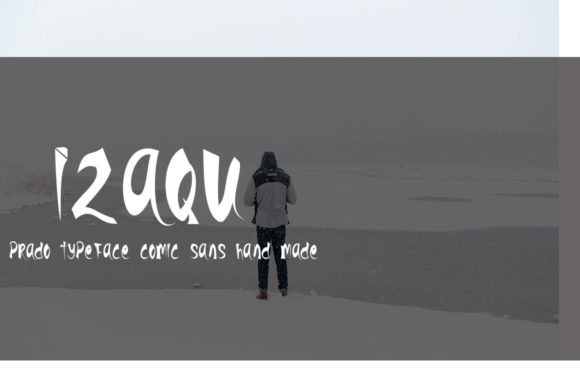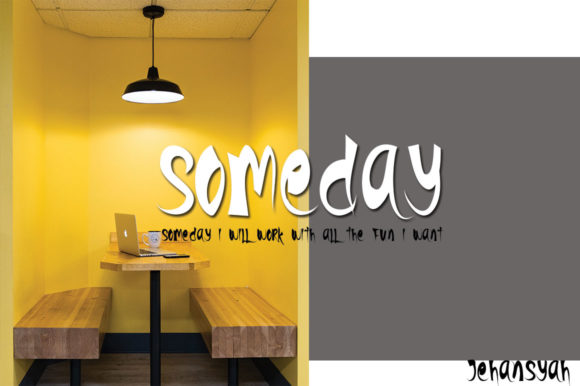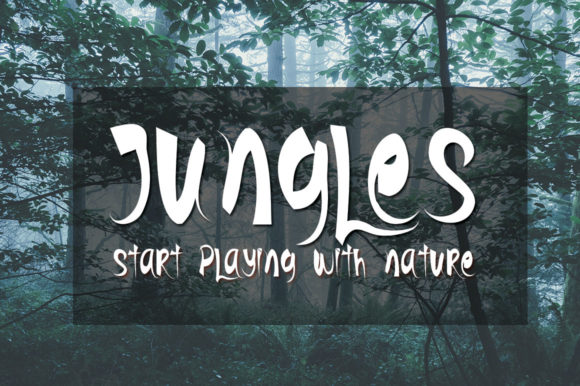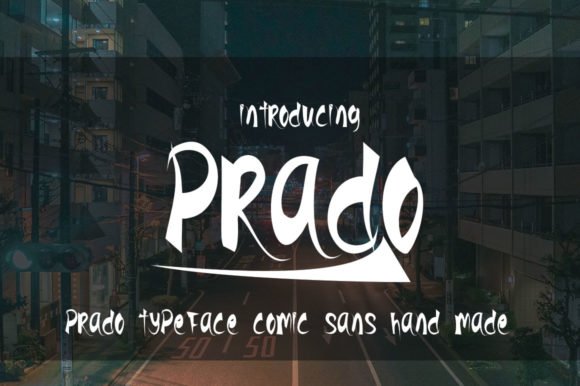
Introduction to Prado Font
Inspired by comics, Prado is a fun and bold display font with a special twist.
It will turn any design project into a stand out .